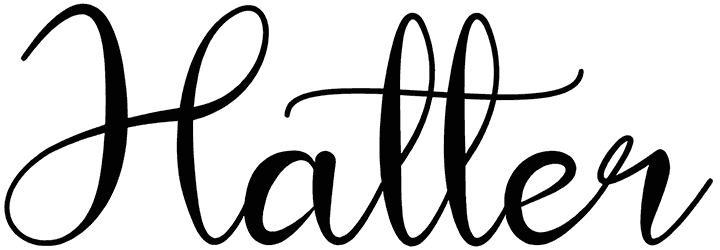
Hatter Font
Use a delicate calligraphy font like this one to win the hearts of your followers. Hatter font has smooth and cursive characters that convey a classic and chic feeling. With this romantic font, you can create varied layo…
Use a delicate calligraphy font like this one to win the hearts of your followers. Hatter font has smooth and cursive characters that convey a classic and chic feeling. With this romantic font, you can create varied layouts such as an Instagram post, a special sale flyer, a postcard for your friends, or many others like.